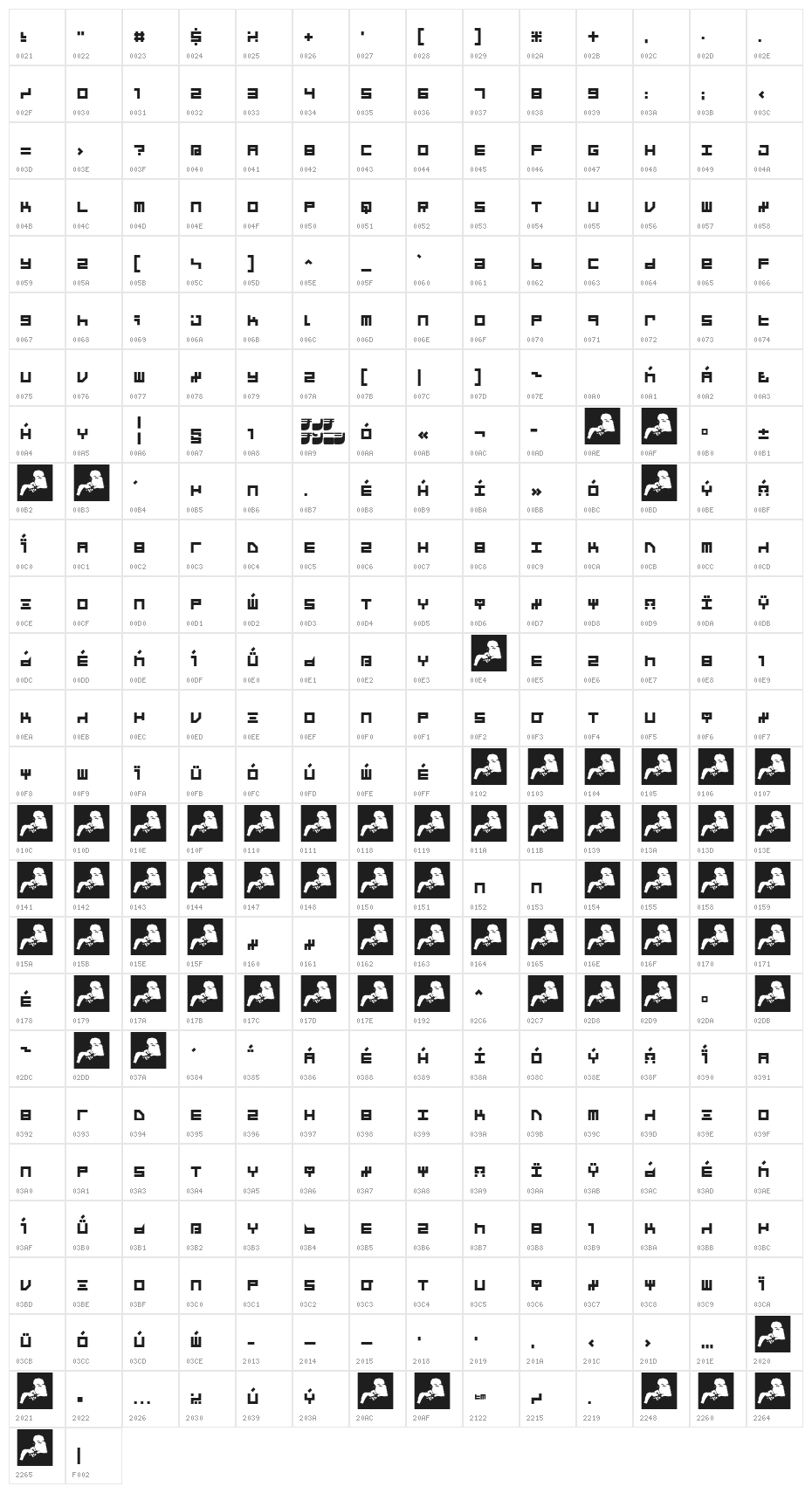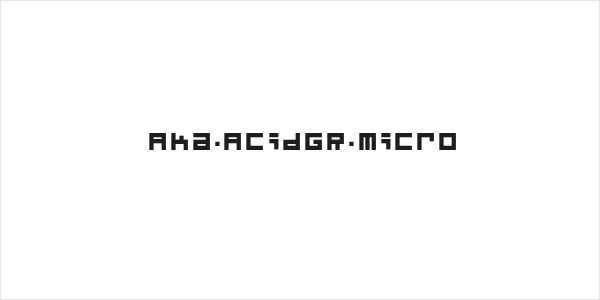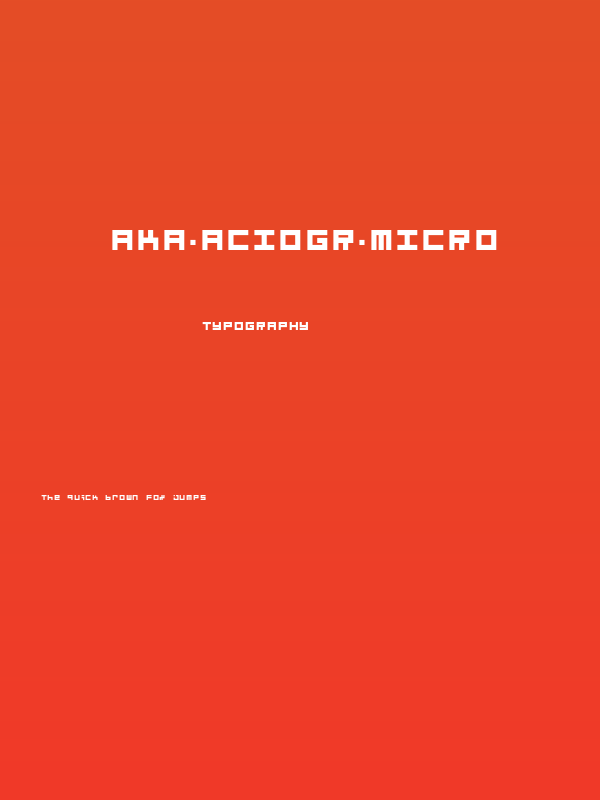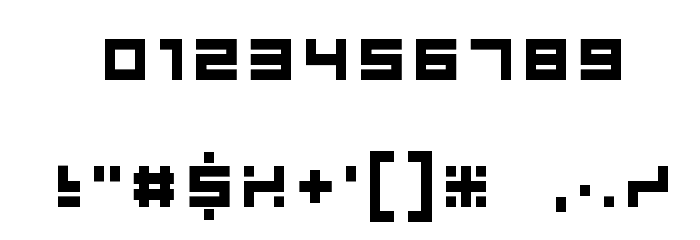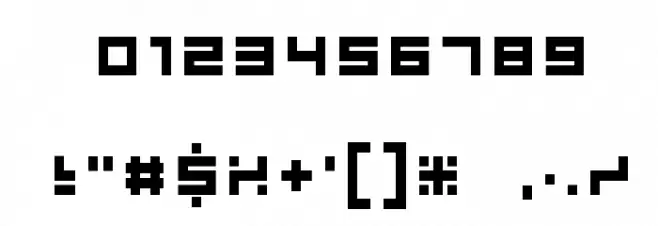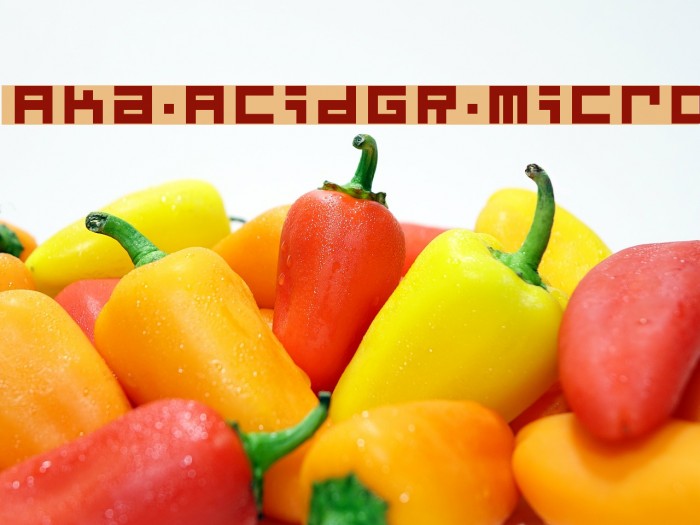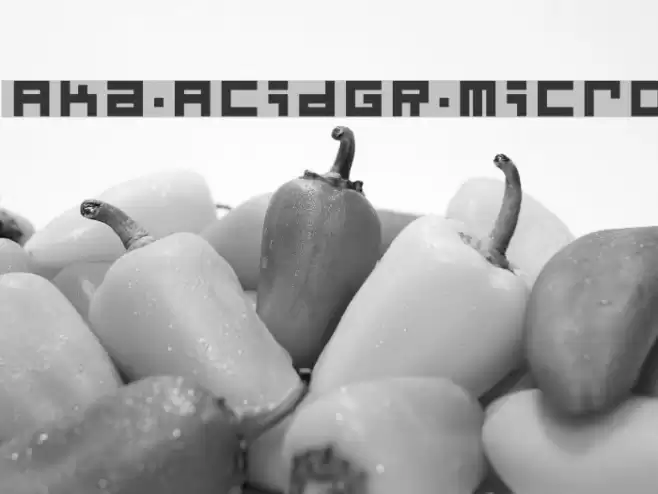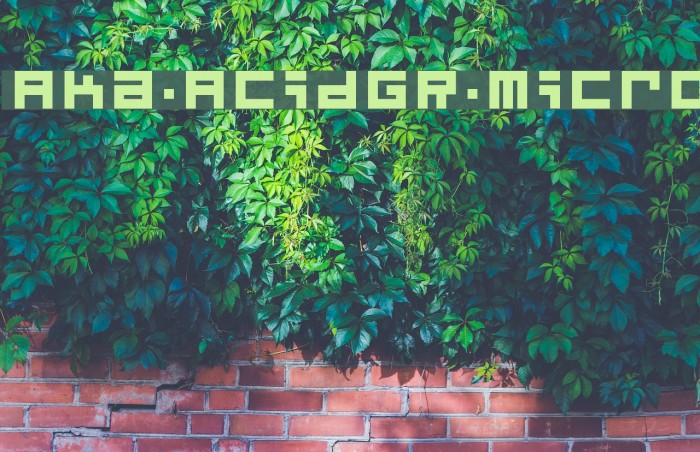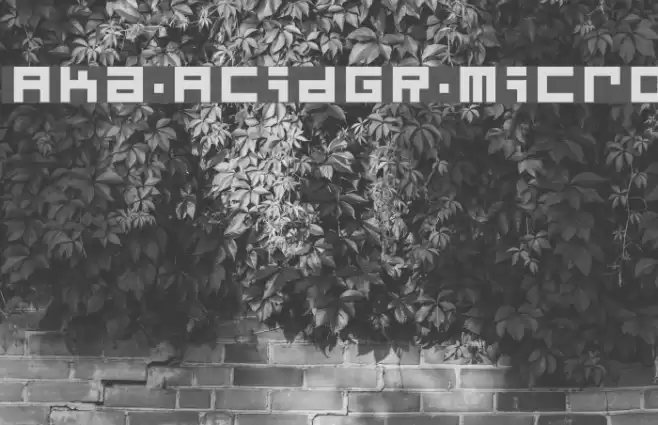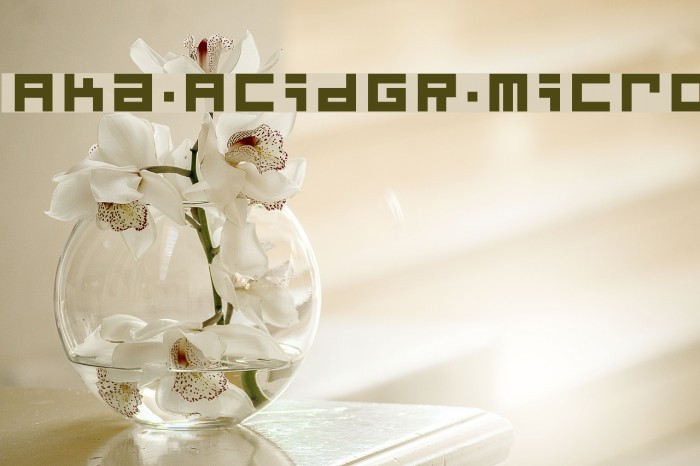
Aka-AcidGR-Micro Font
Aka-AcidGR-Micro Description
This font features a bold, geometric design with a distinctly digital and futuristic aesthetic. The characters are constructed with sharp angles and straight lines, giving them a blocky, pixelated appearance reminiscent of early computer graphics. The uppercase and lowercase letters maintain a consistent width, contributing to a uniform look across the typeface. The numerals and special characters follow the same design principles, ensuring visual harmony throughout. This font's strong, structured form makes it highly legible, even at smaller sizes, while its unique style adds a modern, tech-inspired flair to any project.